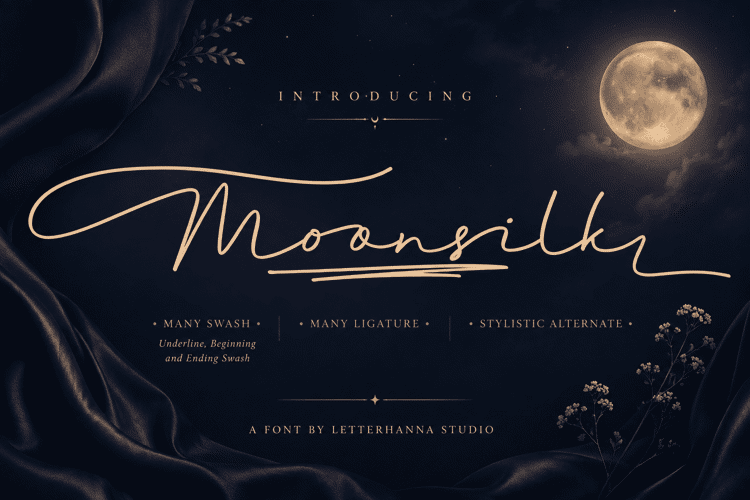
Moonsilk Font
Moonsilk Luxury Signature Script Font
Have you ever finished a design and thought, “It looks good… but why doesn’t it feel special?”
Often, the problem isn’t the layout or the artwork. It’s the font.
Moonsilk brings a refined handwritten character to your typography, combining graceful strokes with expressive swashes, elegant ligatures, and stylistic alternates. Instead of forcing you to decorate around ordinary lettering, Moonsilk makes the lettering itself part of the visual experience.
A single word can suddenly feel like a signature. A simple phrase can become a focal point. A minimal composition can gain personality without adding another graphic element.
That’s the surprising power of a well-crafted script font.
Moonsilk is made for wedding invitations, elegant branding, romantic stationery, logos, packaging, quotes, social media designs, and projects that need a sophisticated handwritten atmosphere.
When your design feels almost right but something is missing, sometimes the answer isn’t more.
It’s simply the right font.